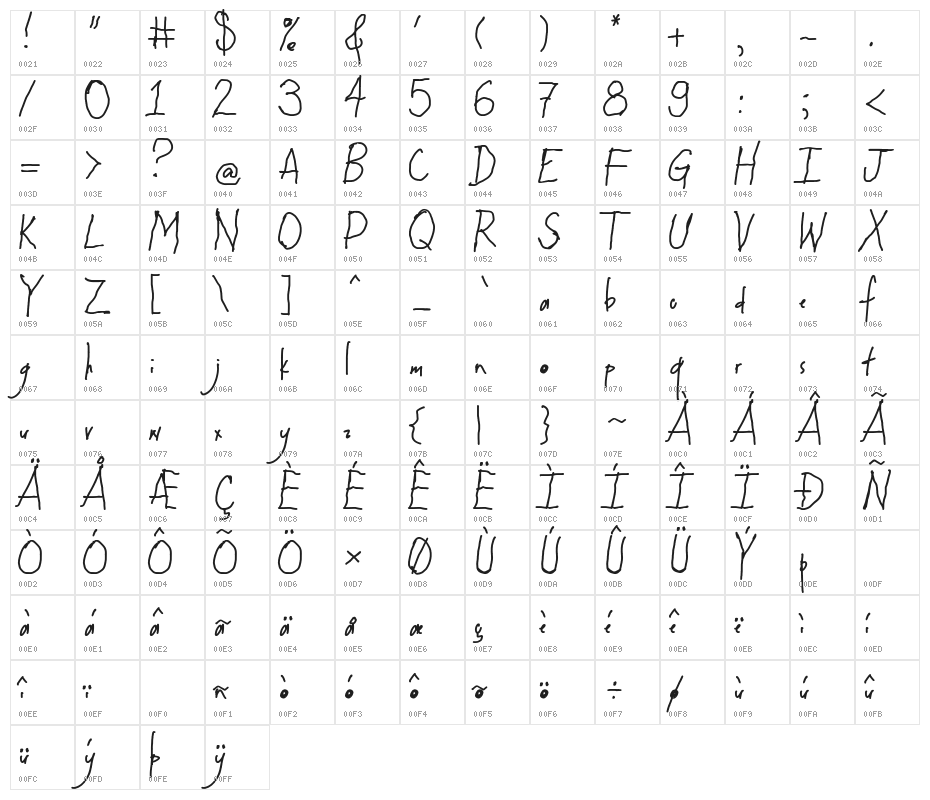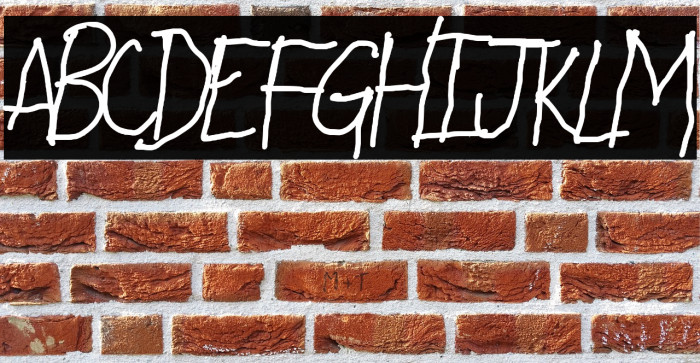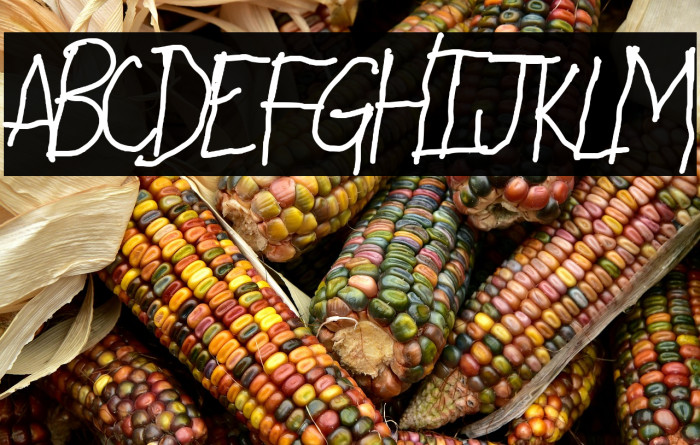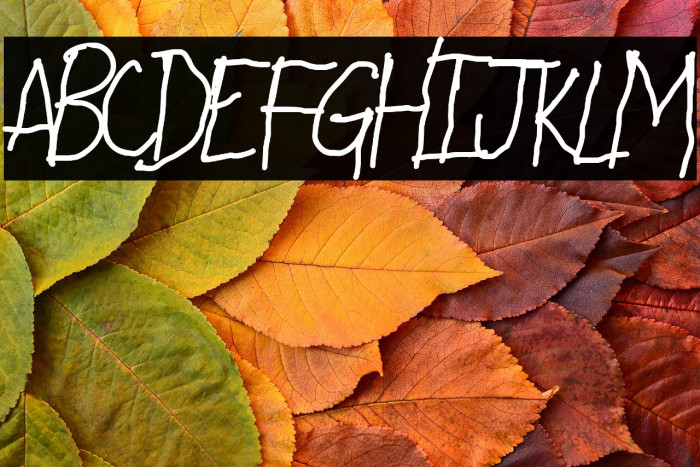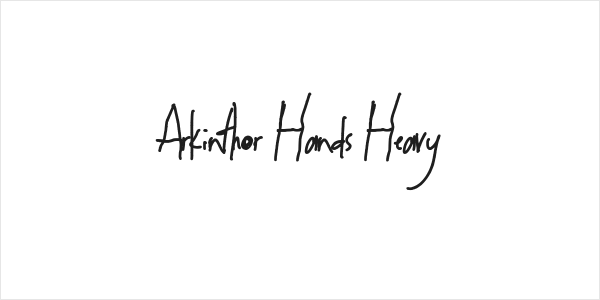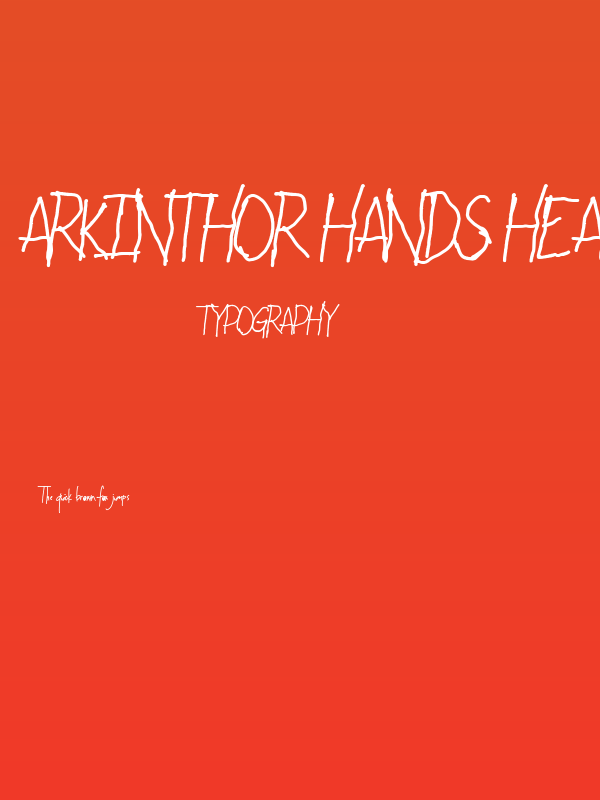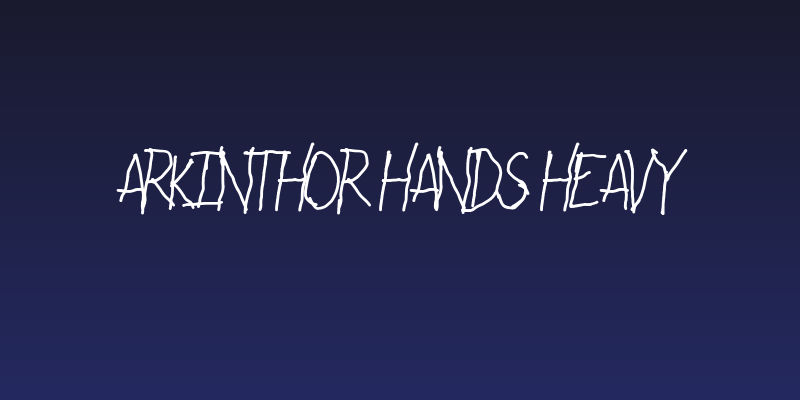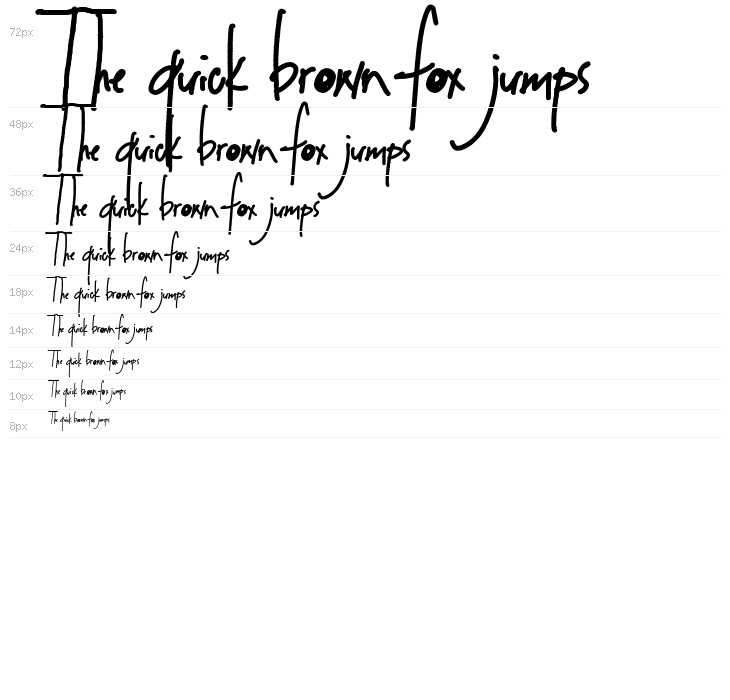
Arkinthor Hands Heavy Font
Arkinthor Hands Heavy Description
A rough, expressive handwritten font with irregular strokes and variable line thickness, giving it a raw, energetic appearance. The characters are tall and narrow, with exaggerated ascenders and descenders, and a casual, almost chaotic flow.
| Overall Style | Decorative, expressive, raw |
| Use Case | Headlines, posters, logos, artistic projects |
| Proposed Projects | Posters, album covers, street art graphics, zines, expressive branding, creative social media graphics. |